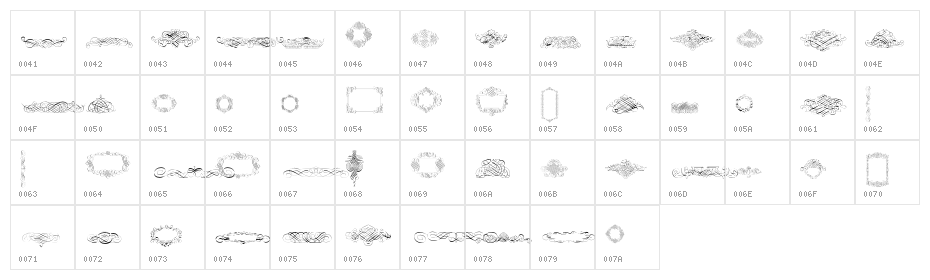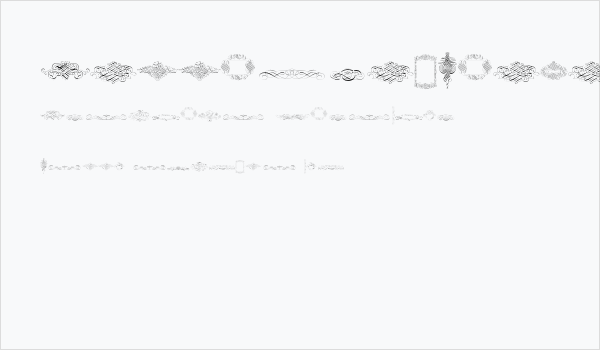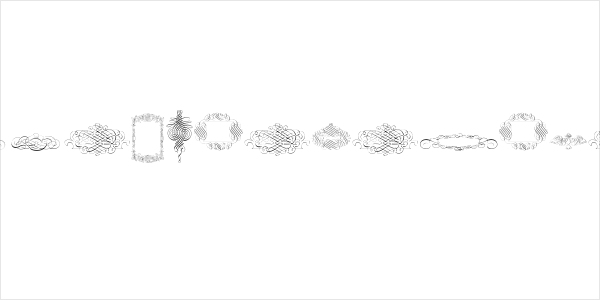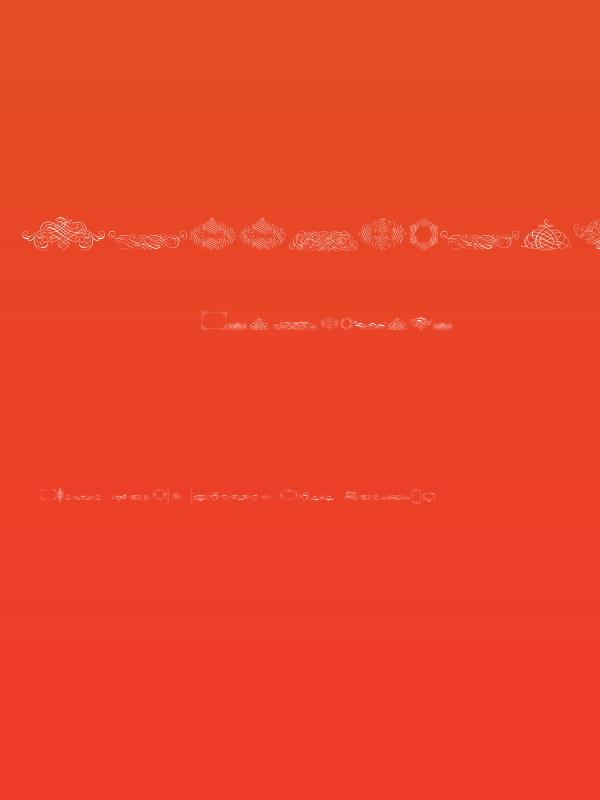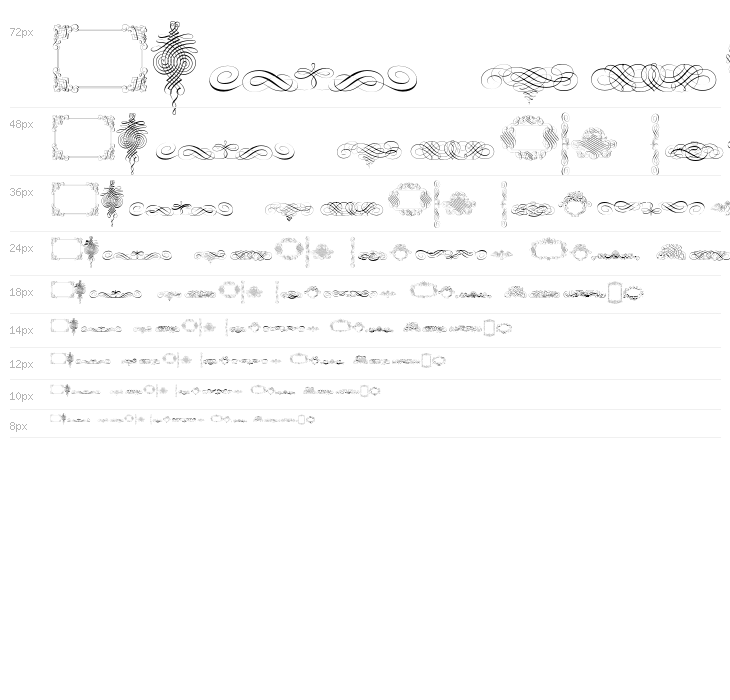
CalligraphiaLatinaFree Font
CalligraphiaLatinaFree Description
Highly decorative and ornate set of flourishes and frames, featuring intricate swirls and calligraphic embellishments reminiscent of vintage penmanship. Each character is a unique ornamental design rather than a traditional letterform.
| Overall Style | Decorative, Vintage, Ornamental |
| Use Case | Borders, frames, embellishments, invitations, certificates |
| Proposed Projects | Wedding invitations, certificates, decorative borders, vintage-themed branding, luxury packaging. |